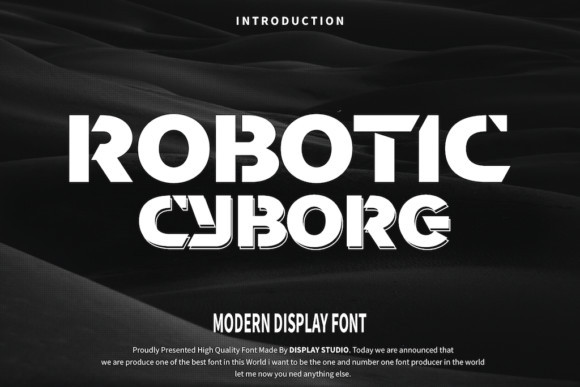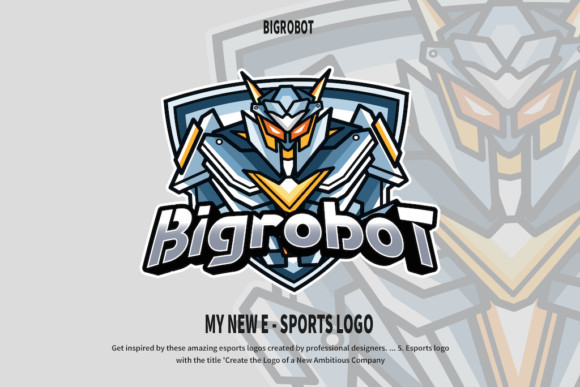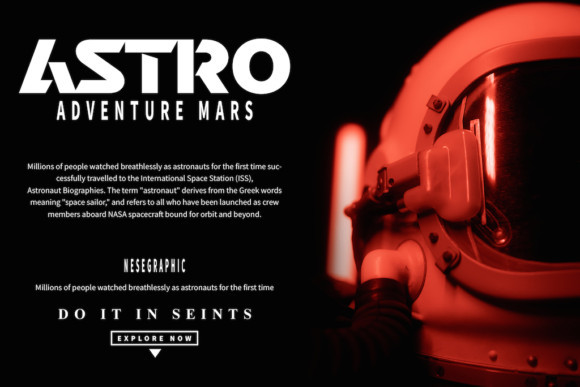
Robotic Cyborg Font
Robotic Cyborg is a bold and authentic display font. Add it to your most creative ideas and notice how this font makes them come alive!